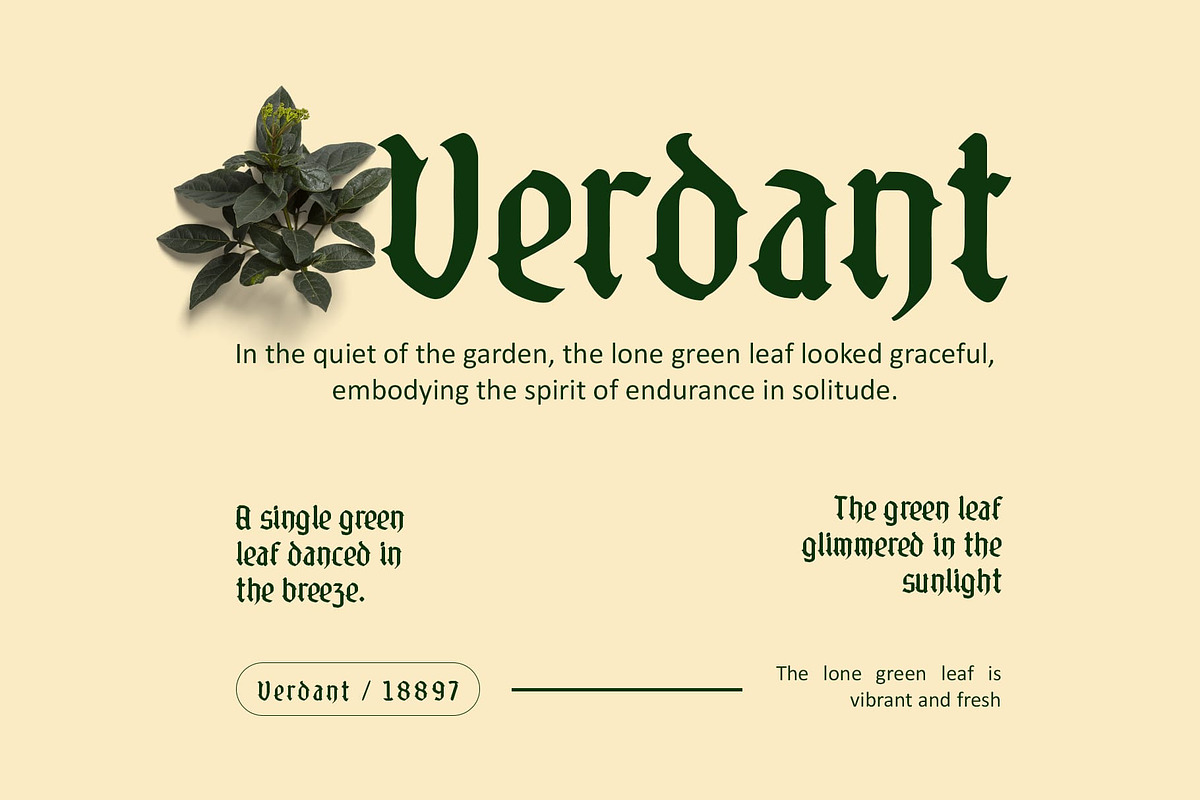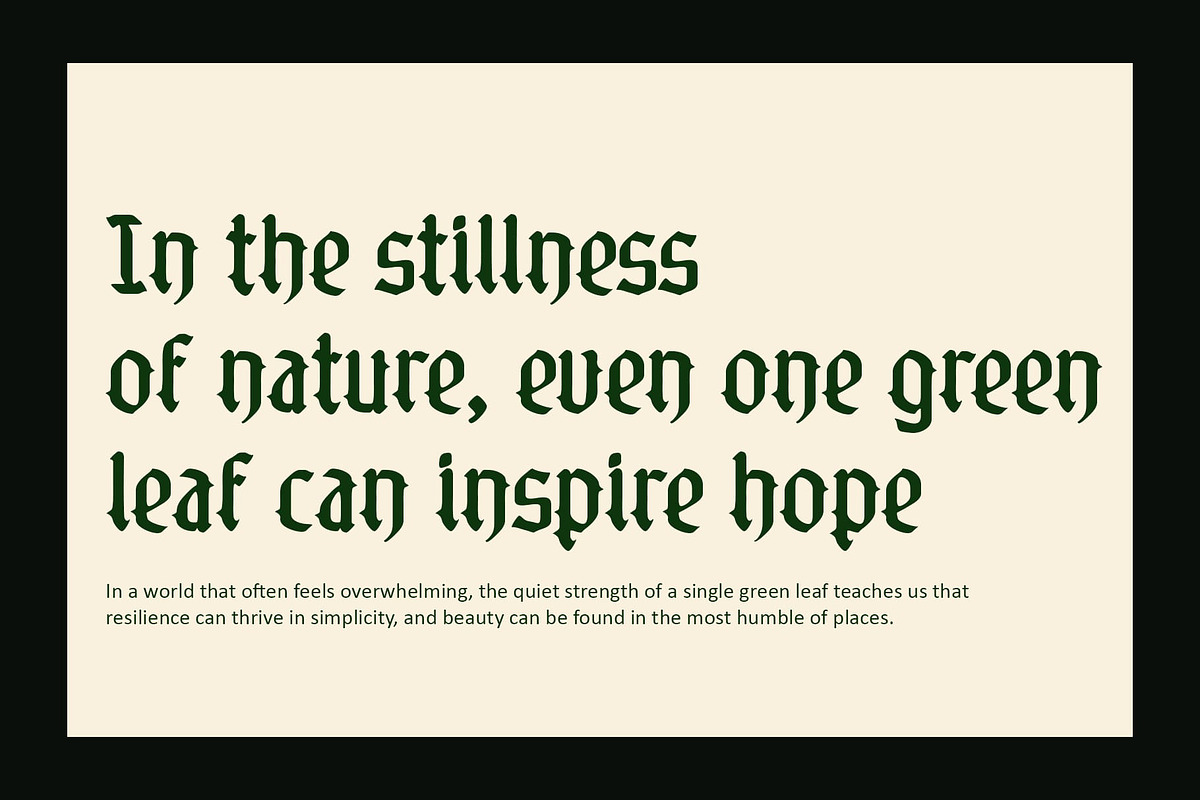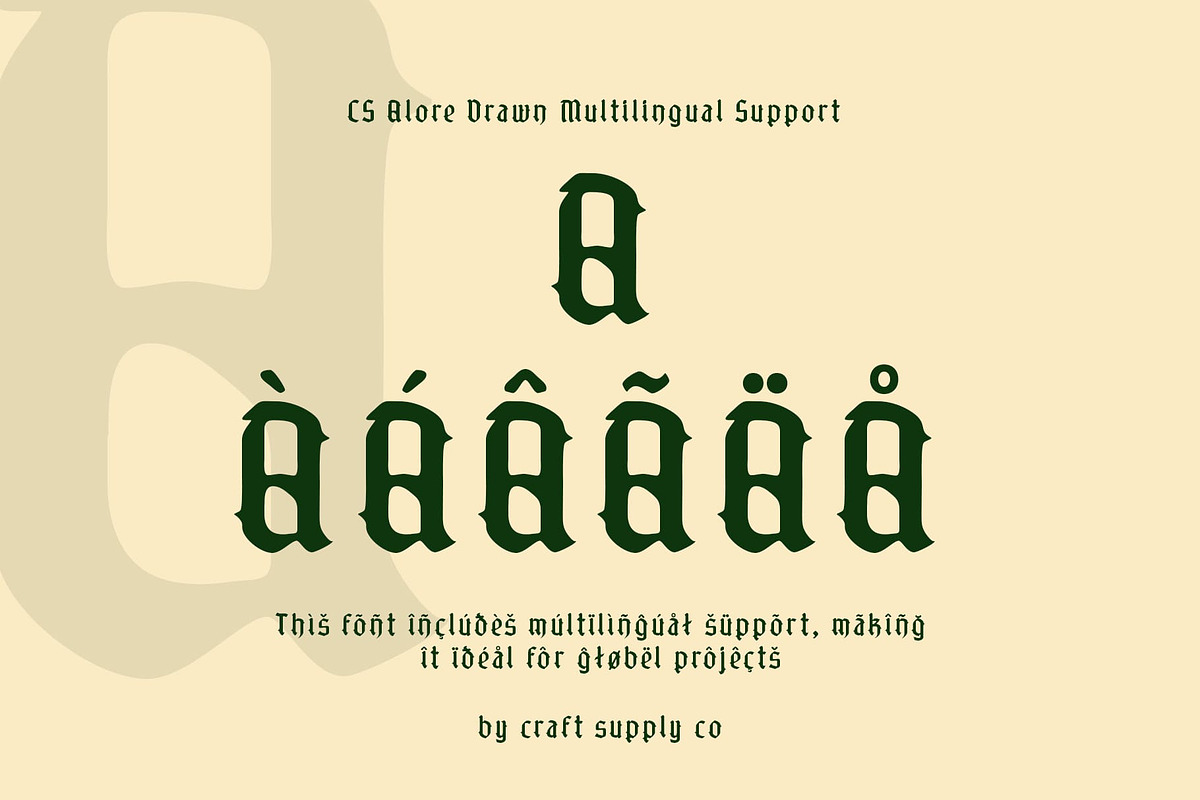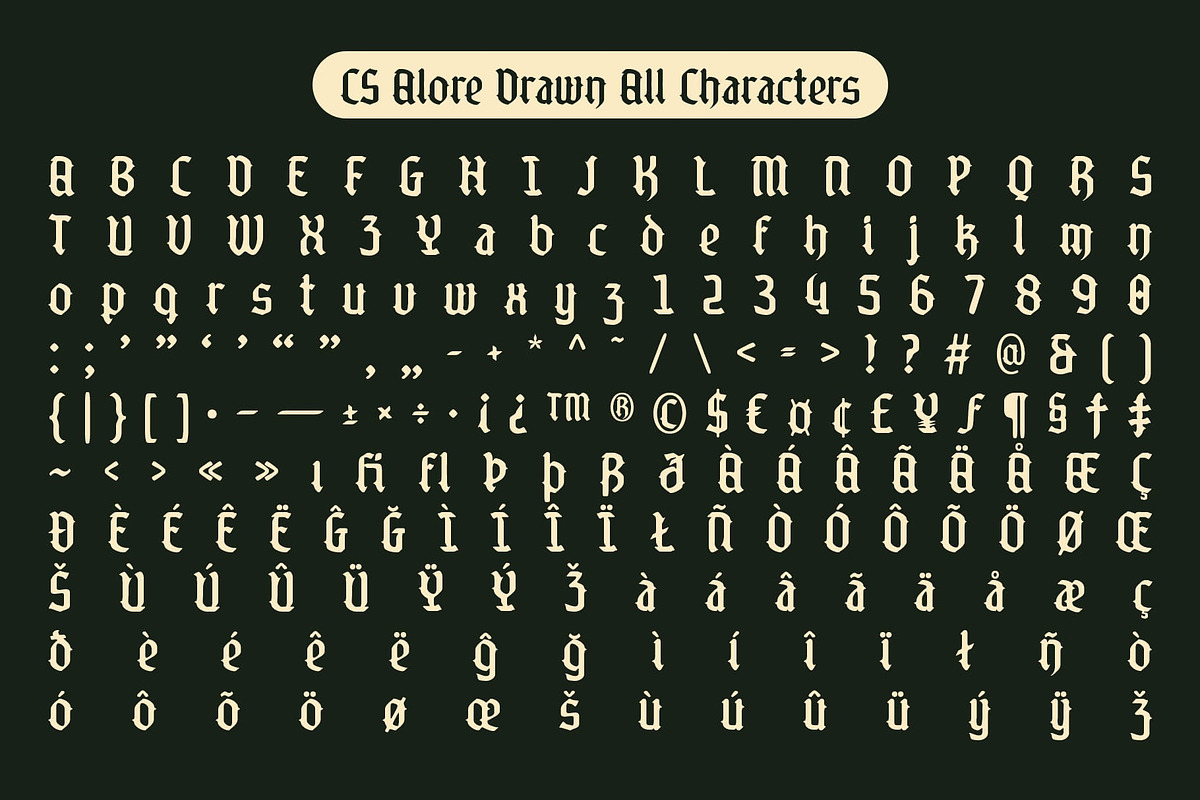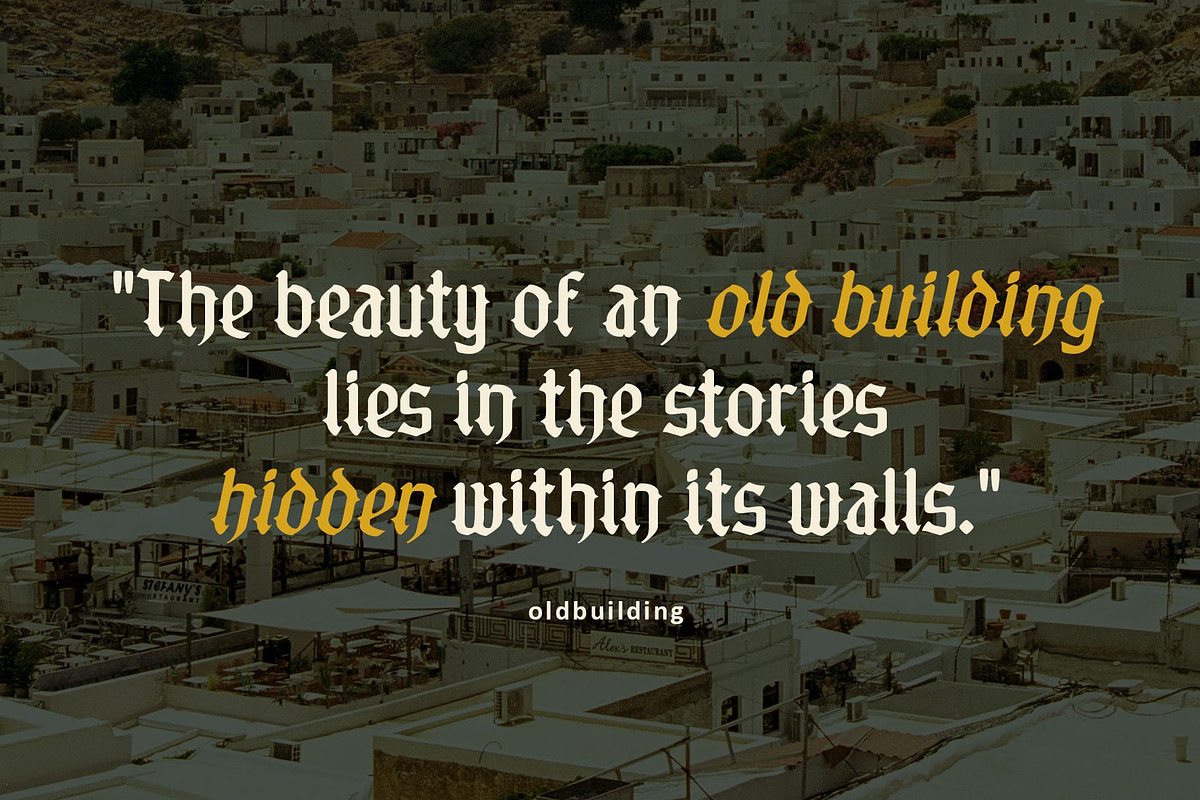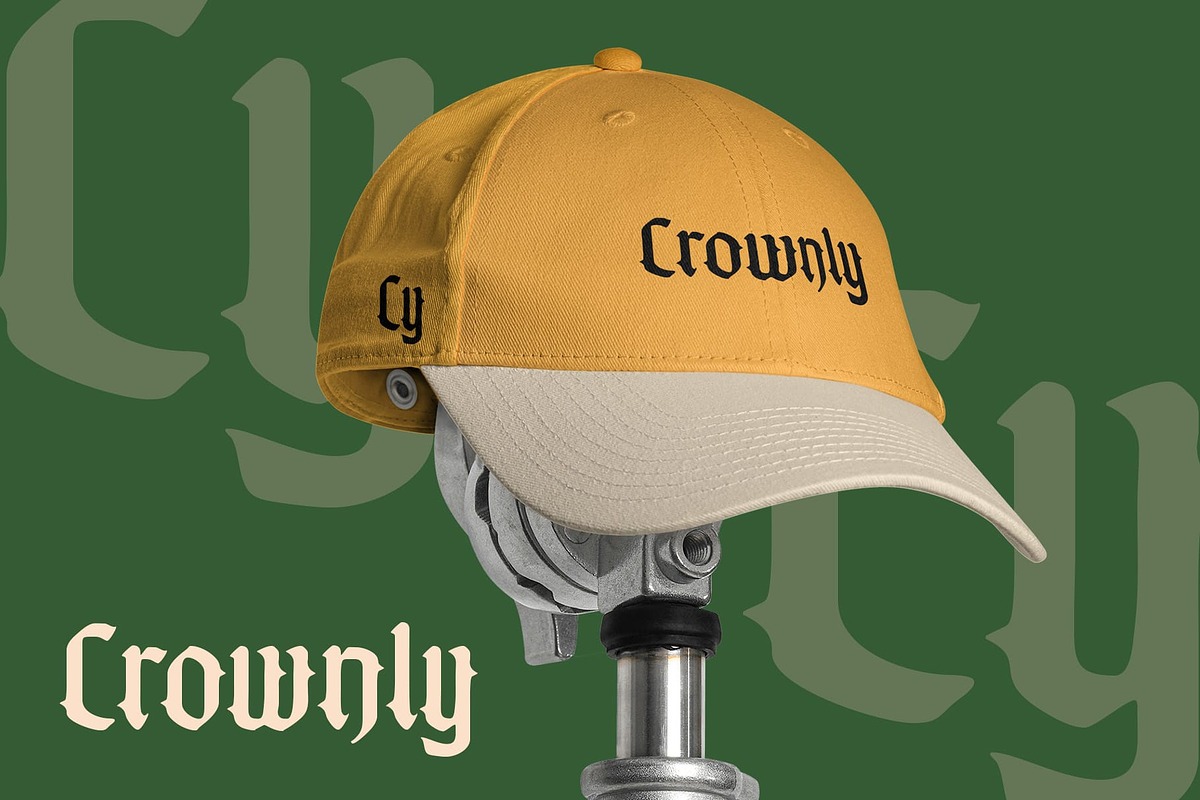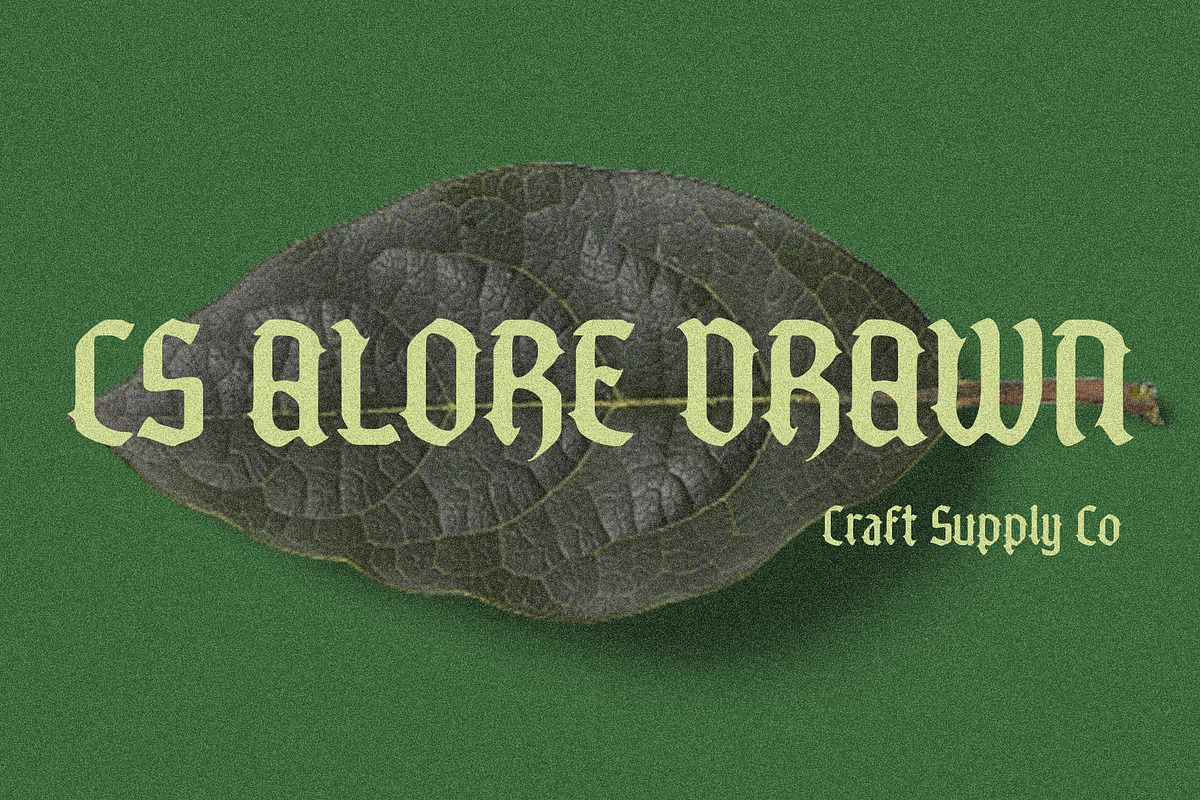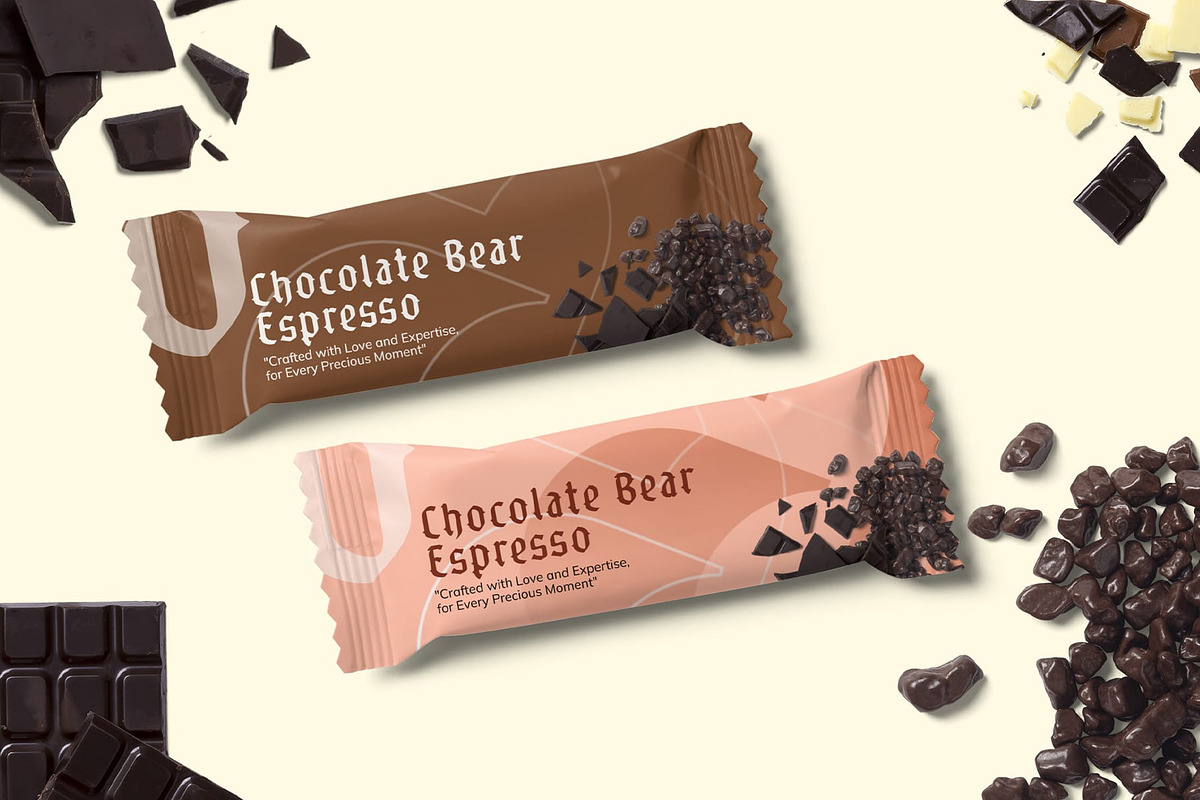
CS Alore Drawn
CS Alore Drawn: The Artistic Touch of Tradition
Blackletter Display Font with a Drawn Effect This is a captivating blackletter display font that seamlessly marries a rich historical aesthetic with a unique drawn effect. Known for its sharp angles and bold lines, this font evokes a dramatic and strong impression, making it an ideal choice for designs that wish to express both tradition and classic elegance.
Handwritten Aesthetic for Creative Projects The innovative drawn effect adds an extra layer of personality to this typeface, giving each letter the appearance of having been meticulously handcrafted. This unique characteristic allows the font to retain the assertiveness typical of blackletter styles while introducing the warmth and charm of handwritten typography. The strokes appear organic, enhancing the font’s creative edge and allowing for versatility in application.
Versatile for Various Design Applications CS Alore Drawn’s striking design makes it incredibly versatile for a multitude of applications. Whether you’re developing vintage-style branding, creating evocative event materials, or crafting artistic compositions, this font delivers a perfect balance of historical richness and contemporary appeal. Its bold nature allows it to stand out in larger formats, making it a fantastic choice for attention-grabbing headlines and impactful visual statements.